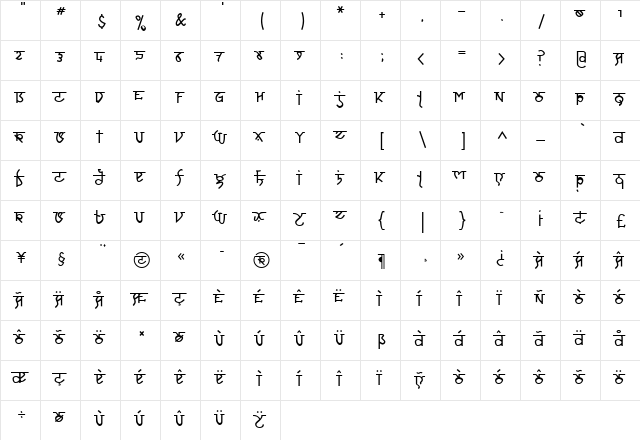
DevineTown Regular Font Preview
DevineTown Regular
DevineTown Regular Font Details
Design Context for DevineTown Typeface
DevineTown offers clean, dependable letterforms without strong stylistic allegiance, making it a practical choice for designers who need flexibility.